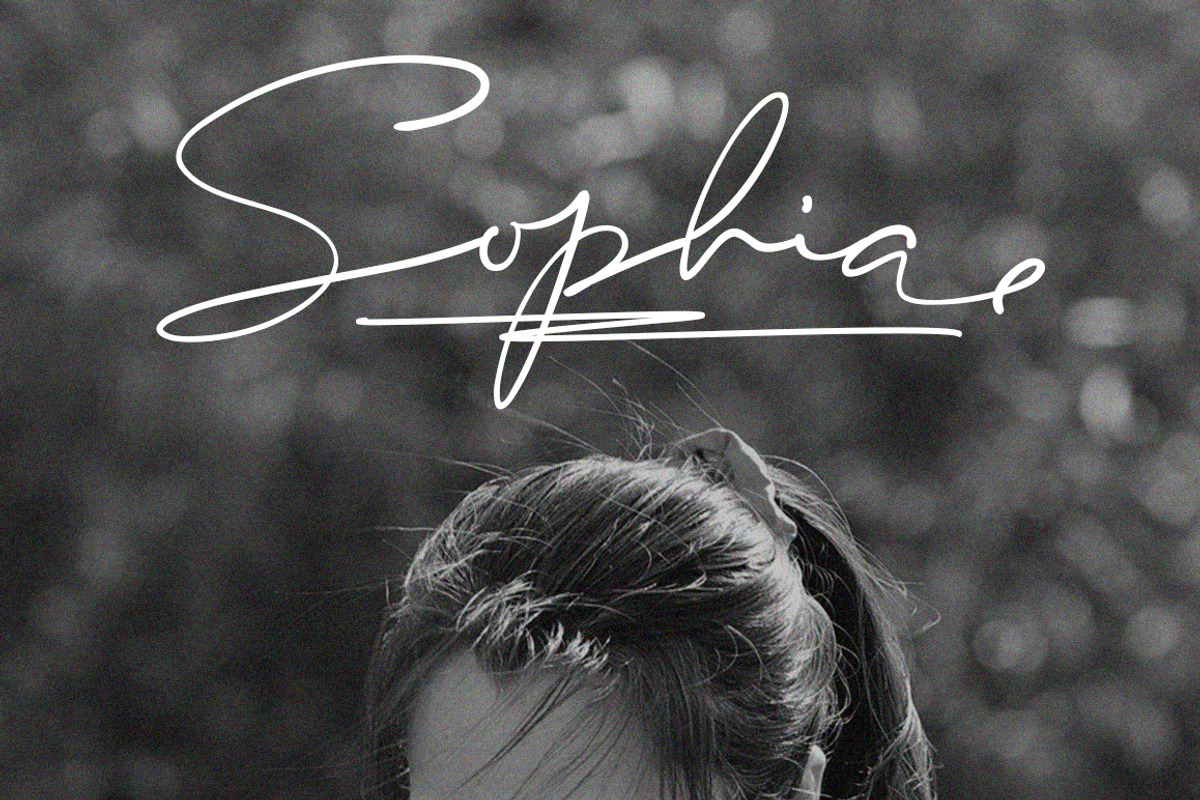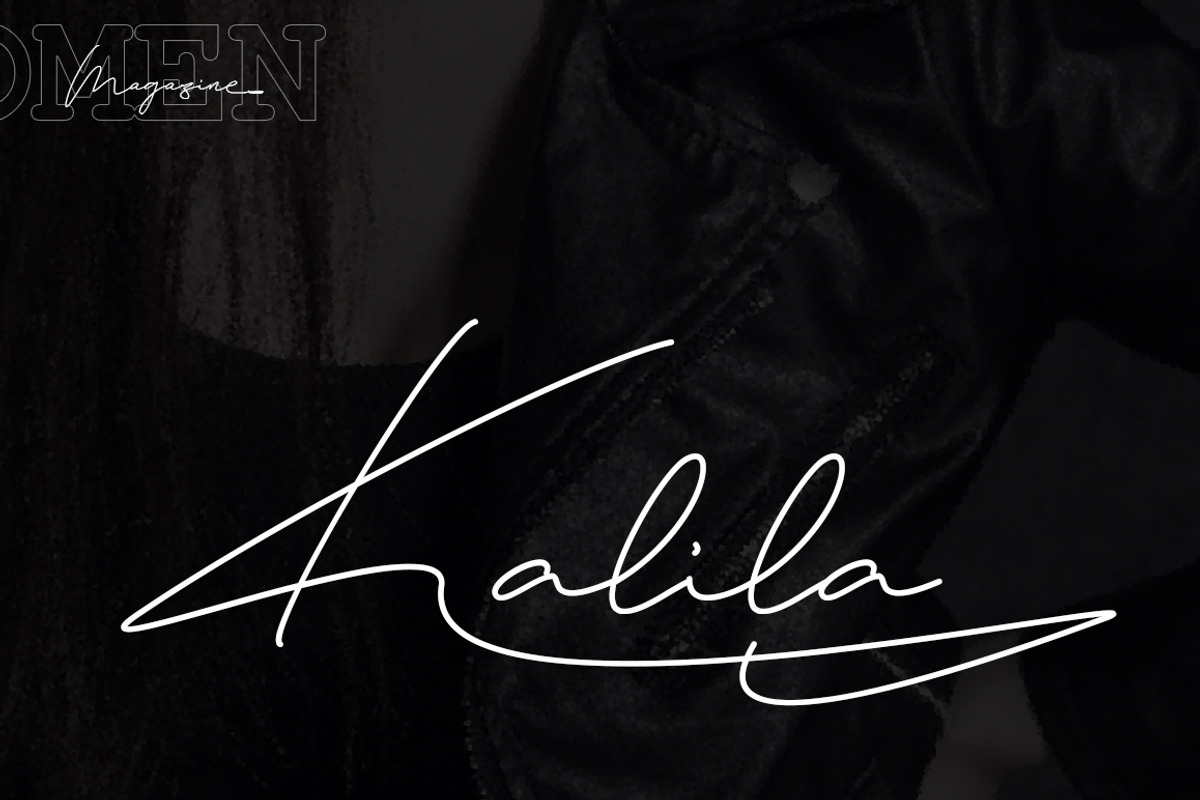
Daisy Signature font
Daisy is a handwritten style signature fonts, with her elegant style and a variety of characters.That contains upper & lowercase characters and the first or end letter ligature, can meet your signature requirements.
Why Daisy Signature font is worth a look
Daisy Signature font by alphadesign fits naturally into Branding, posters, packaging, typography.